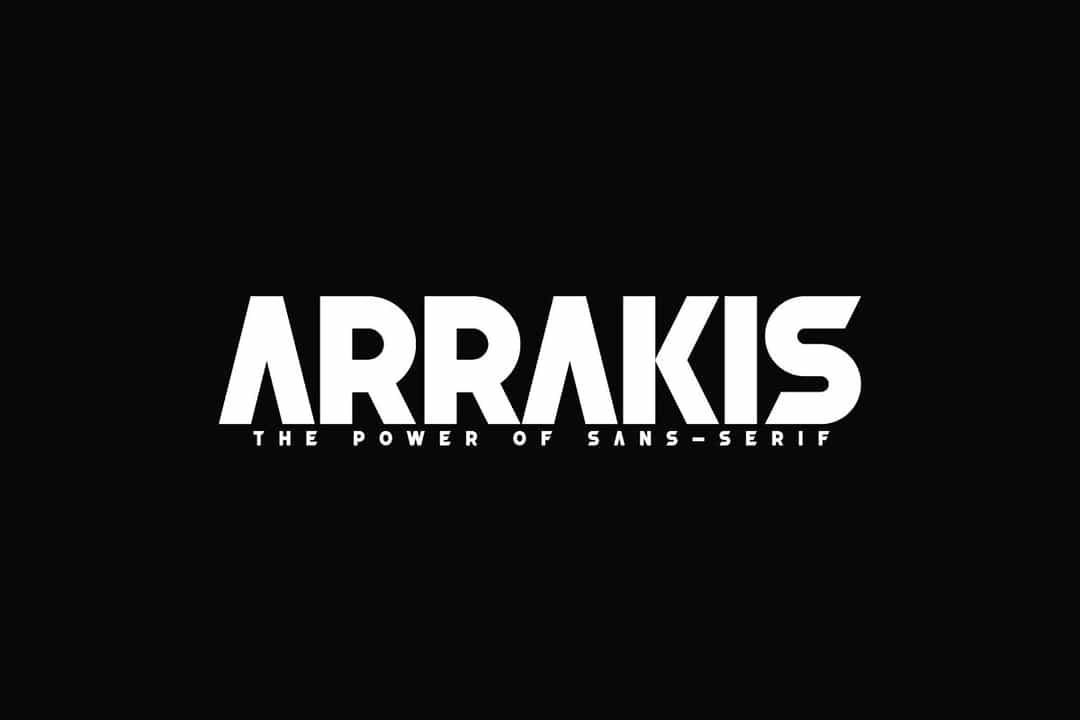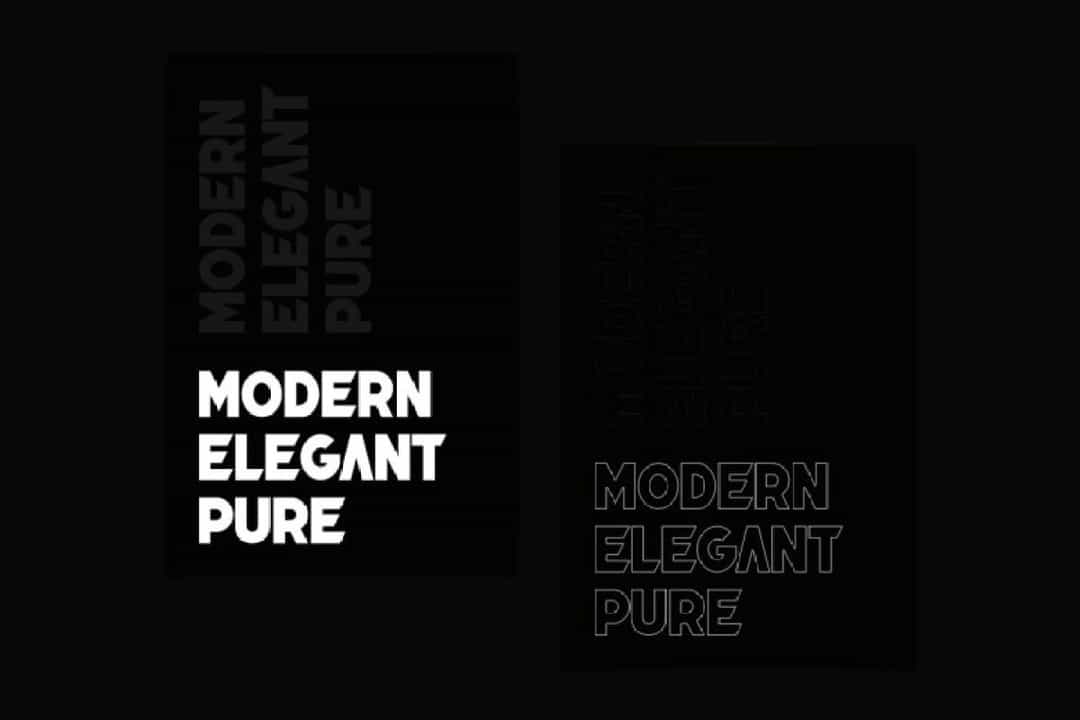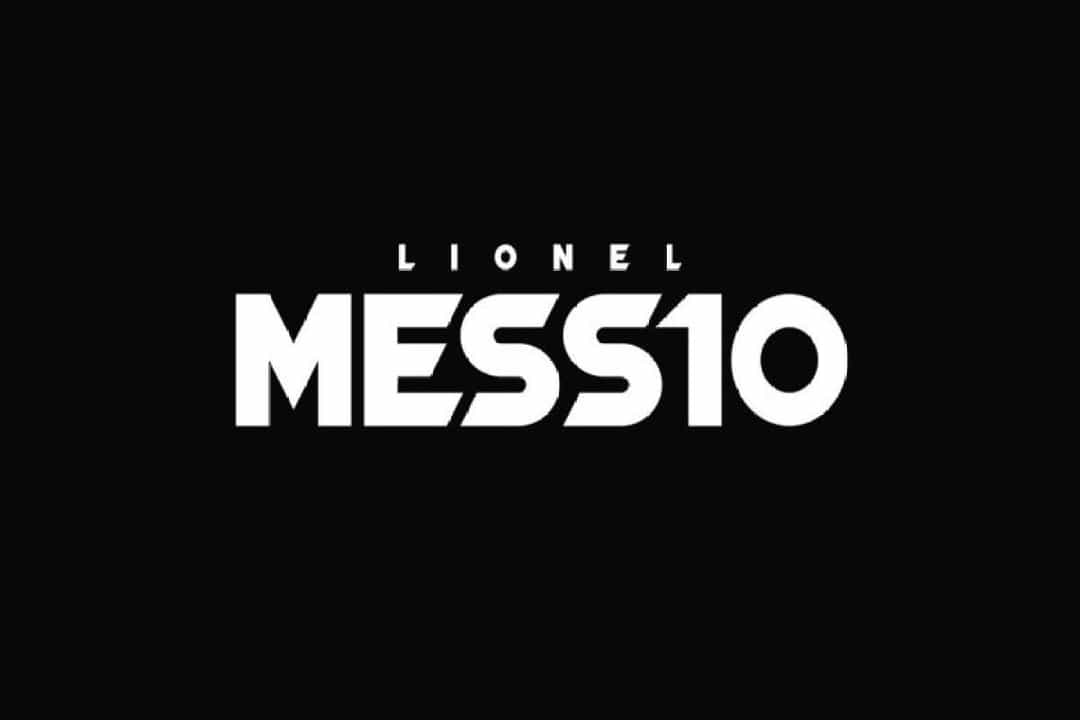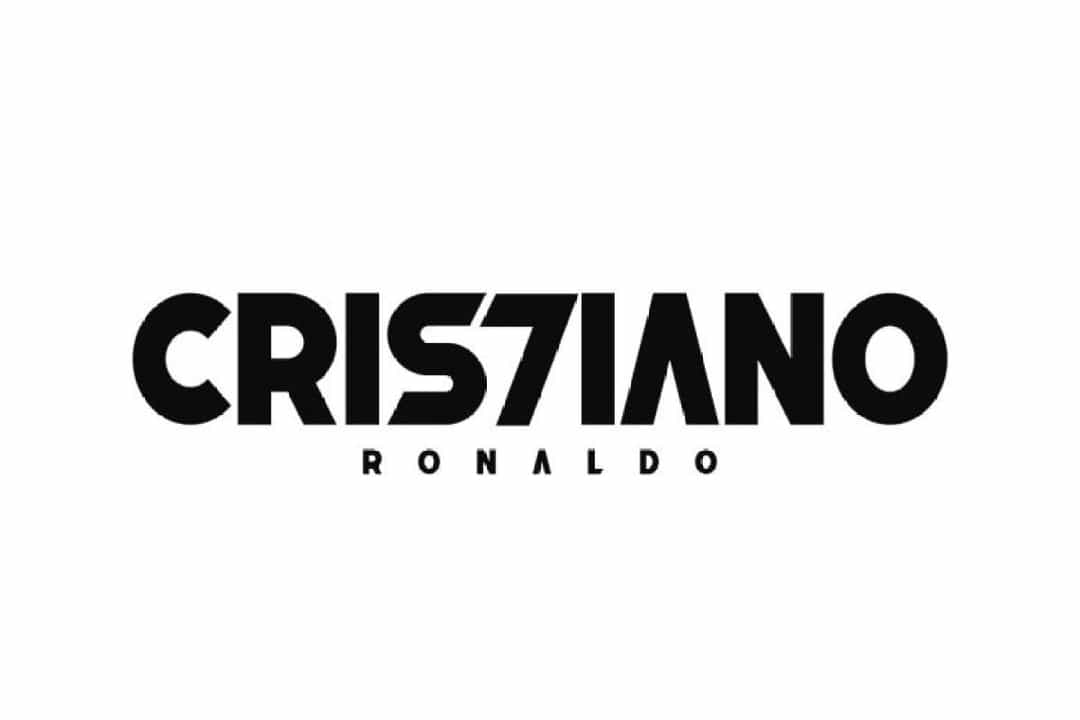
Arrakis is an impressive font family and elegant sans serif. Inspired by sports Its strong, uncompromising design is evident through the well-controlled forms and modern accents. A blend of sharp lines and soft curves. Each font within the family has the ability to stand by itself, vibrant and authoritative on its own.